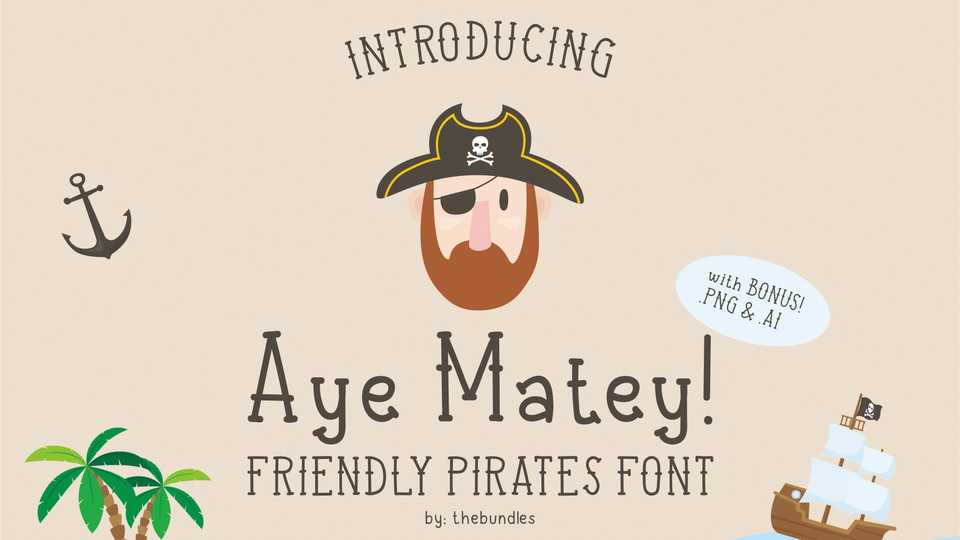
Download Aye Matey font, a fun and friendly sailor’s tattoo style handwritten typeface with a lot of personality. Great for books, comics, posters and other craftworks.